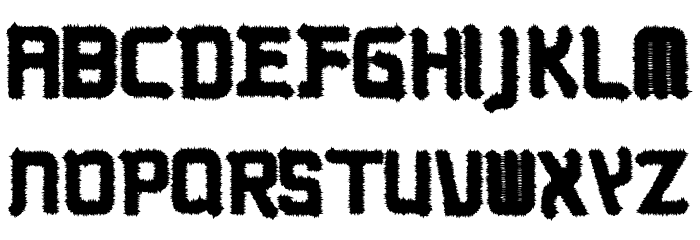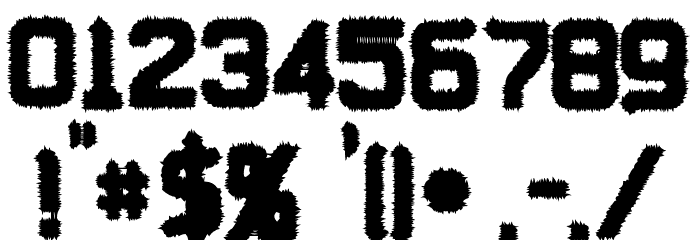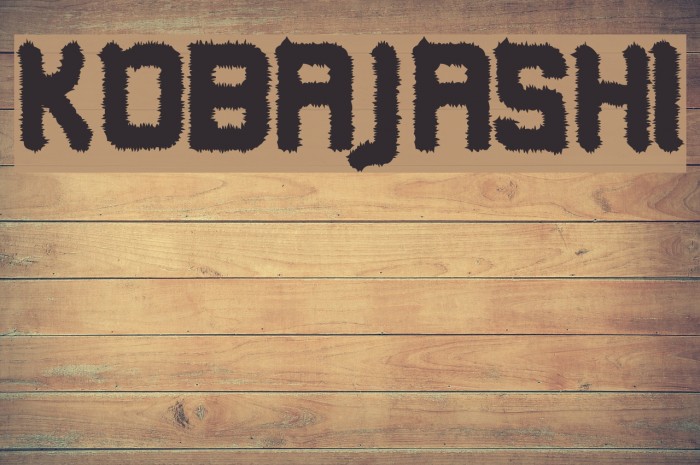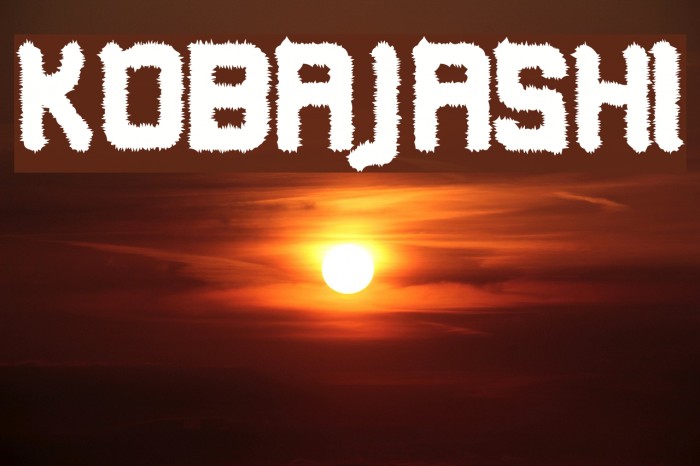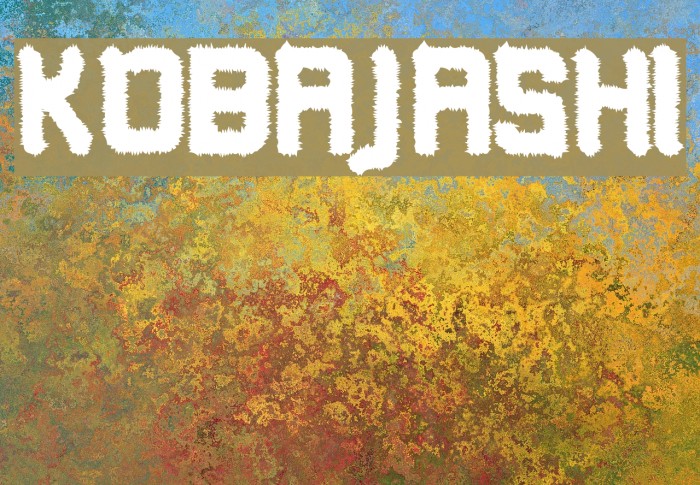
Kobajashi Font
This font features a unique, jagged texture that gives each character a dynamic and edgy appearance. The letters are bold and have a rough, almost furry outline that adds a sense of movement and energy. The uppercase and lowercase letters maintain a consistent style, with the numbers and special characters following suit. The overall design is eye-catching and unconventional, making it ideal for projects that require a bold statement. The font's distinct style is perfect for creative and artistic applications, where a standard typeface would not suffice.
A bold, jagged font with a dynamic, textured appearance.
- Proposed Projects: Ideal for album covers, posters, and creative branding projects.